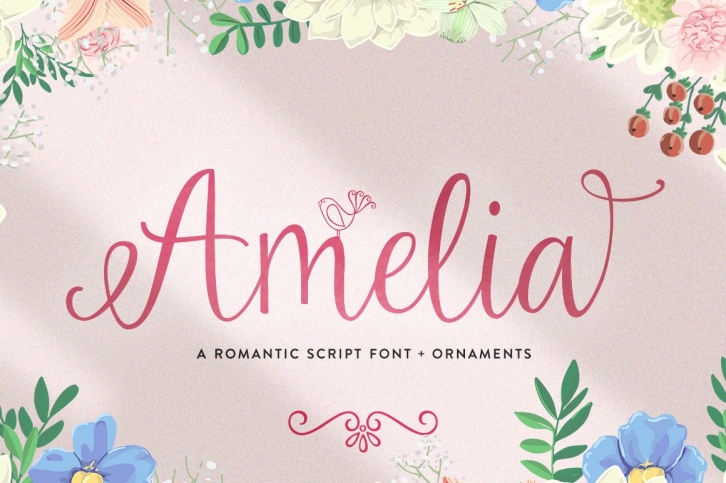
Amelia Script is a new hand written font. Available for both personal and commercial use. Combine the swirling script font with stunning ornaments to create beautiful new designs.